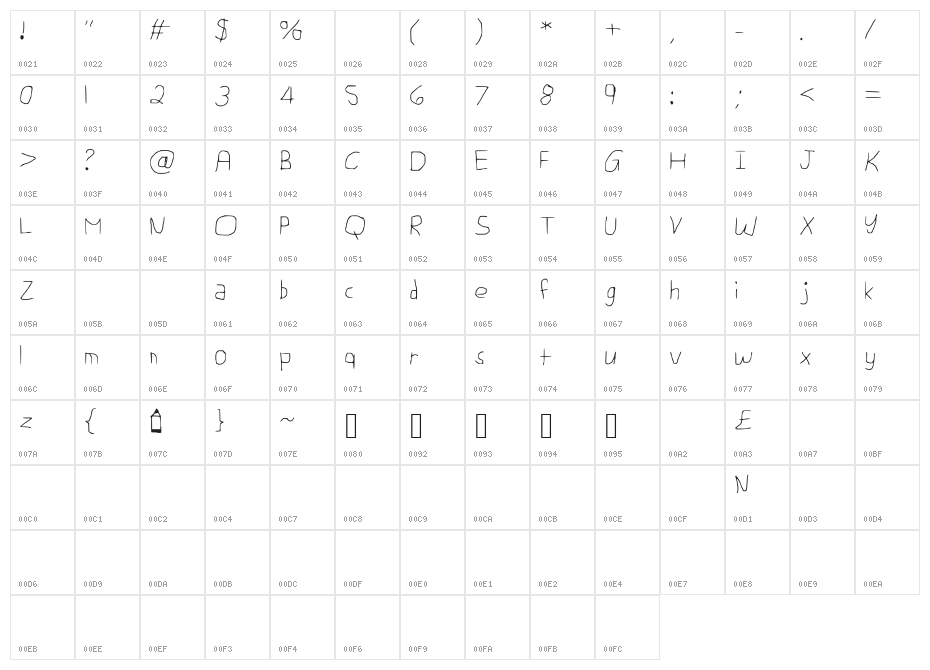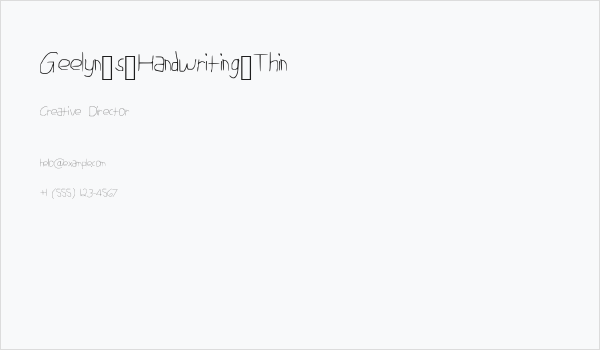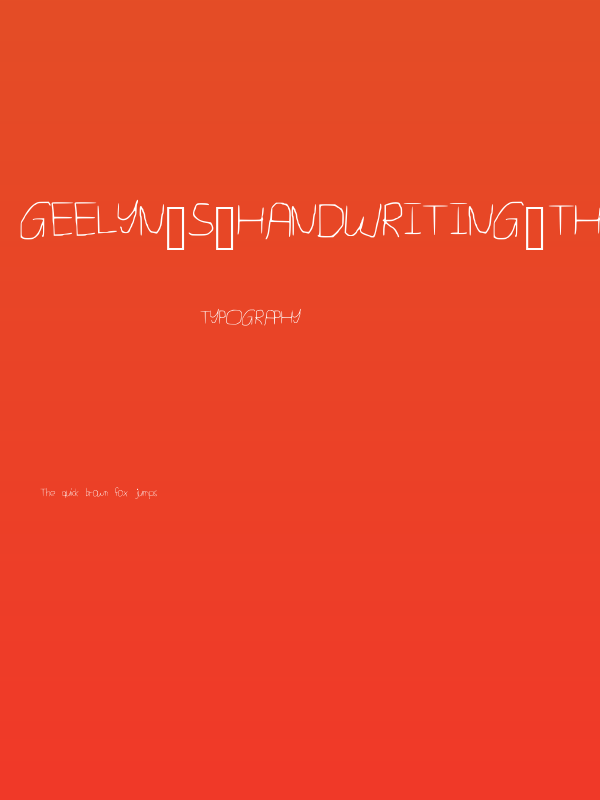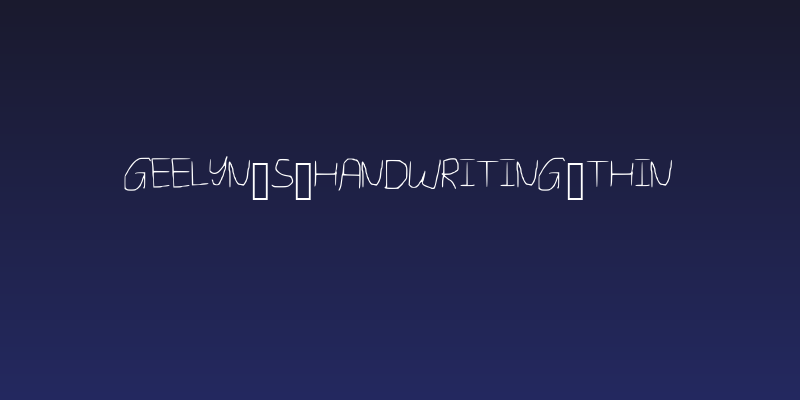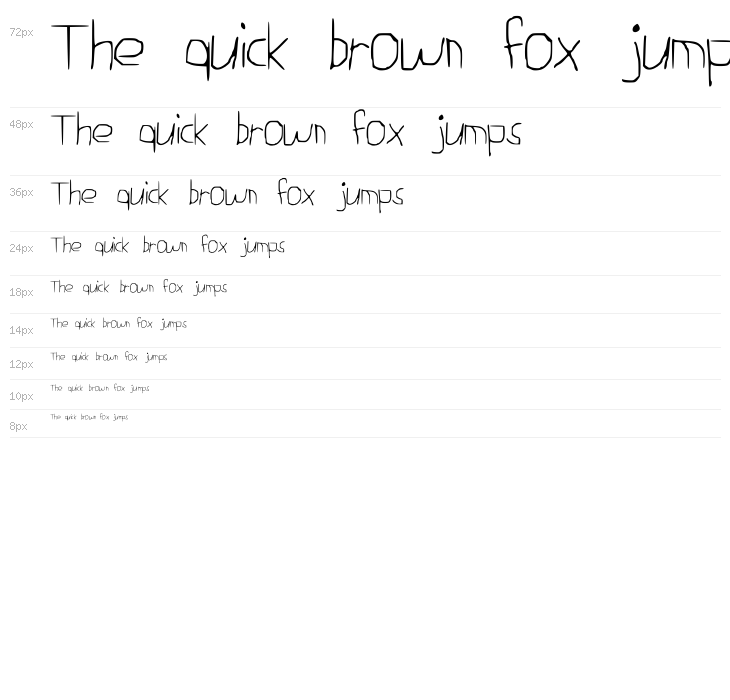
Geelyn_s_Handwriting_Thin Font
Geelyn_s_Handwriting_Thin Description
This font features a unique, handwritten style that mimics the natural flow of penmanship. The characters are thin and slightly irregular, adding a personal and informal touch. The uppercase letters are tall and narrow, while the lowercase letters maintain a consistent height, enhancing readability. Numbers and special characters follow the same handwritten aesthetic, making them blend seamlessly with the alphabet. The overall appearance is casual yet legible, suitable for projects that require a personal or creative flair.
| Use Case | Invitations, Personal notes, Creative projects |
| Proposed Projects | Ideal for personal notes, creative projects, invitations, and informal branding. |